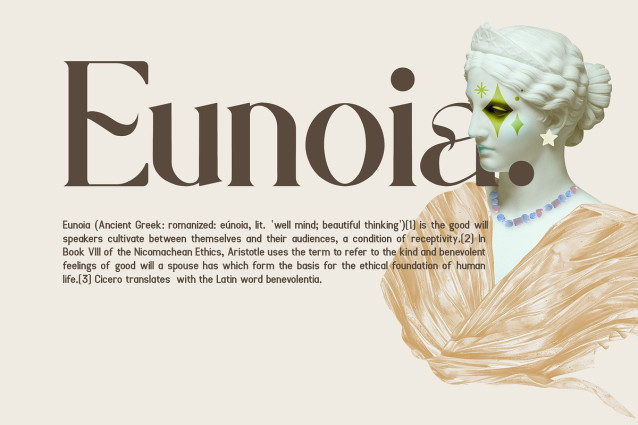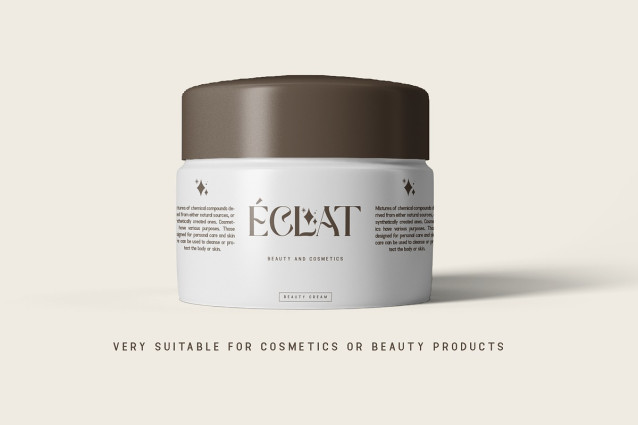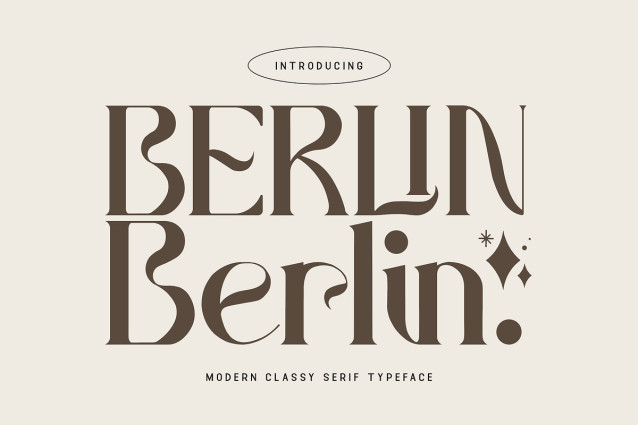
Berlin Typeface
Berlin Typeface a modern classy serif typeface that seamlessly blends classical elegance with contemporary sophistication. “Berlin” is expertly designed to deliver a refined and timeless aesthetic, making it the perfect choice for various design projects that demand a touch of class and modernity.
“Berlin” features sharp, clean lines and beautifully balanced serifs, creating a typeface that exudes confidence and style. This versatile font includes a full set of uppercase and lowercase letters, numerals, punctuation, and extensive multilingual support, ensuring it meets the needs of diverse design applications.
Ideal for branding, editorial design, logos, invitations, packaging, and more, “Berlin” enhances your projects with its sophisticated and modern look. Whether used in print or digital media, this serif typeface adds a sense of elegance and professionalism to your work.
“Berlin” is the ultimate font for designers seeking a modern serif typeface that combines classical beauty with contemporary flair.